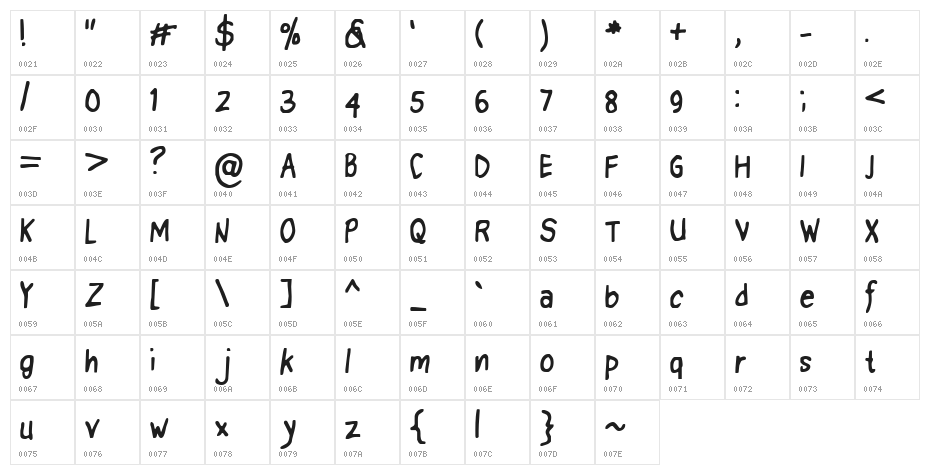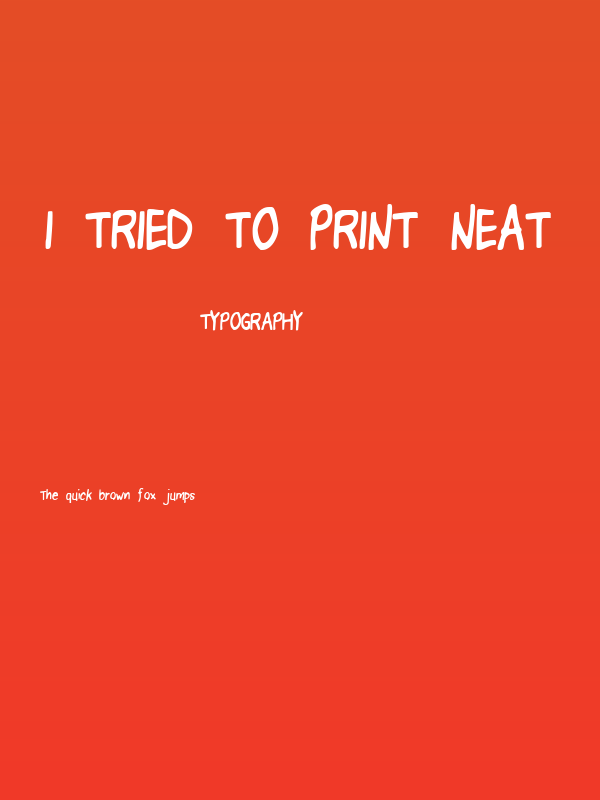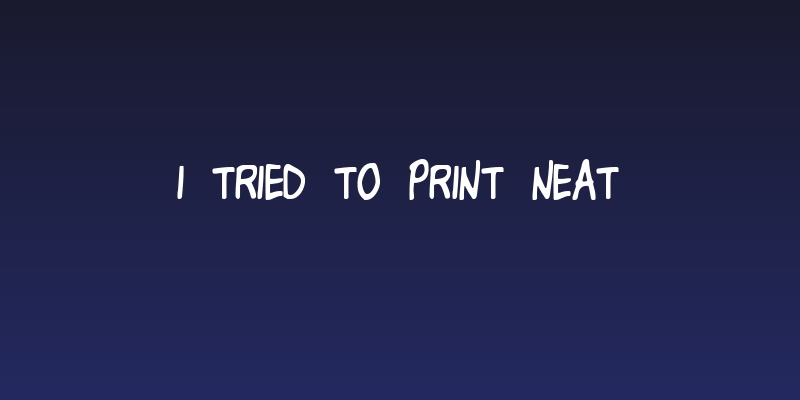
I Tried To Print Neat Font
I Tried To Print Neat Description
This font features a playful, handwritten style with a casual and informal appearance. The letters are bold and slightly uneven, giving them a whimsical and approachable feel. The uppercase and lowercase letters maintain a consistent style, with rounded edges and varying stroke widths that add to the font's charm. The numbers and special characters follow the same playful design, making the font versatile for creative projects. Its unique character spacing and irregular shapes make it stand out, perfect for designs that require a personal touch.
| Proposed Projects | Ideal for children's books, greeting cards, playful branding, and casual invitations. |